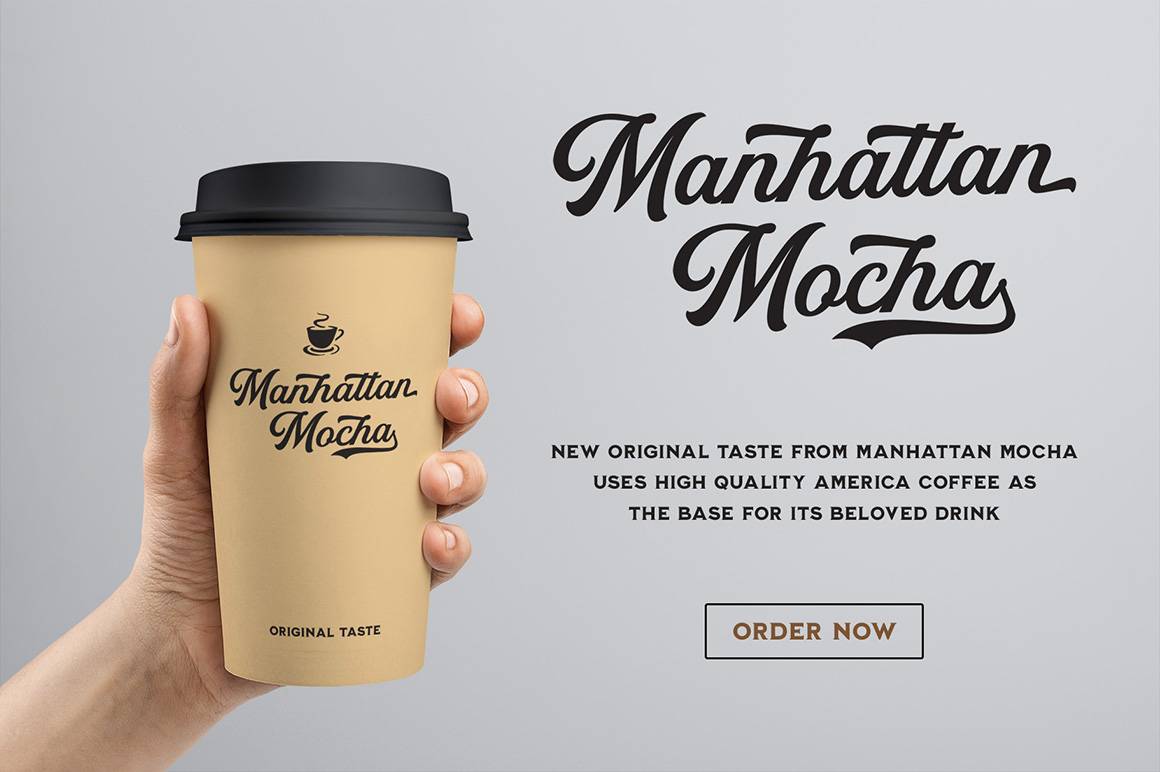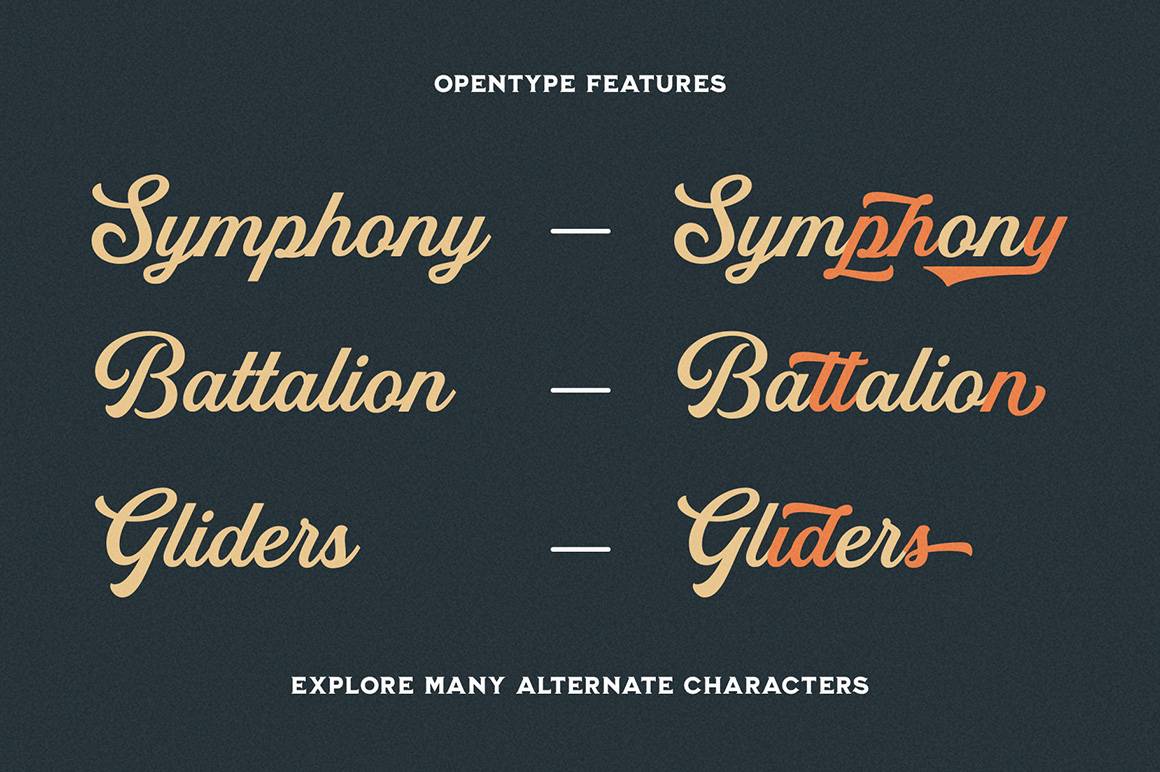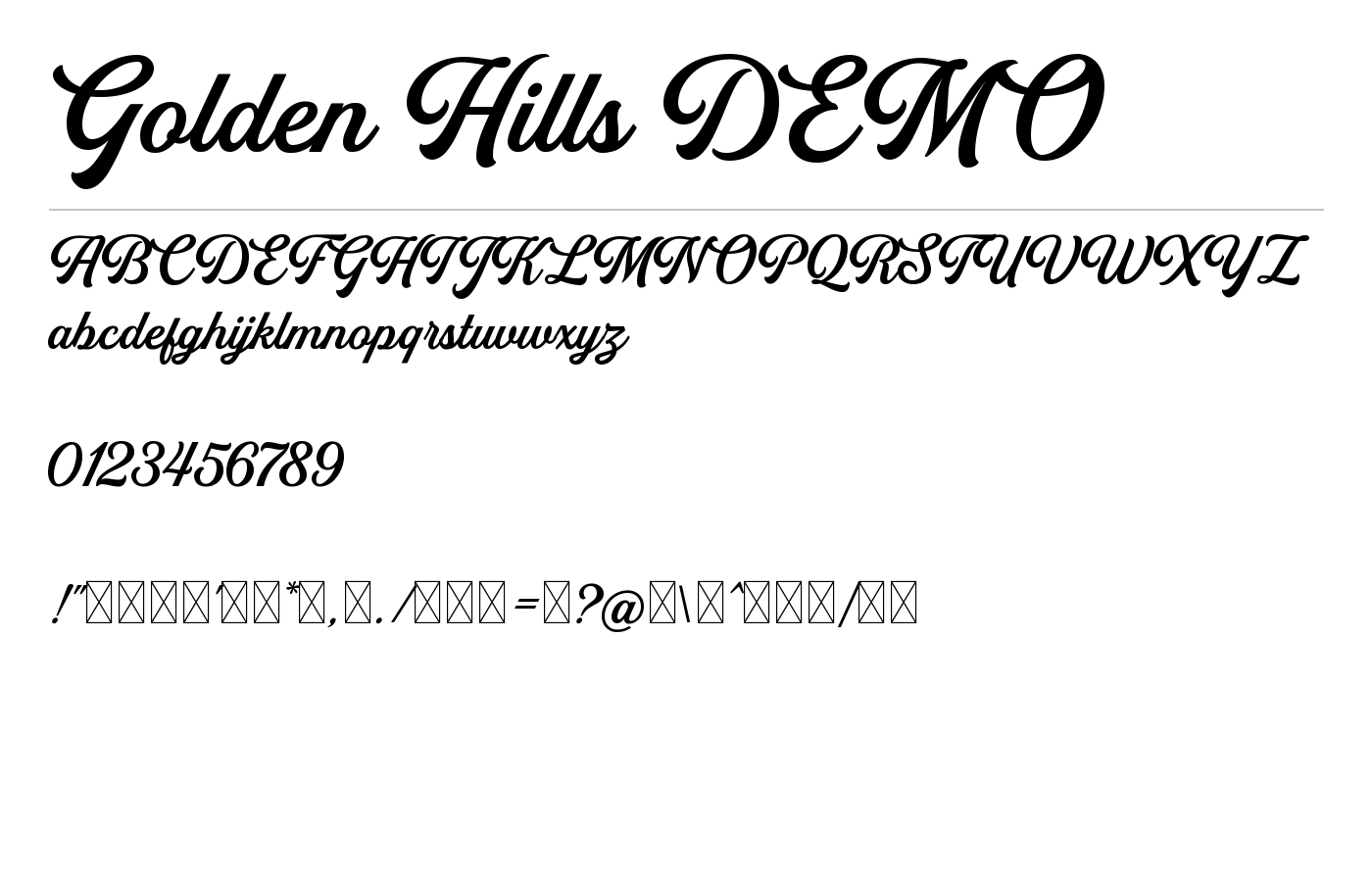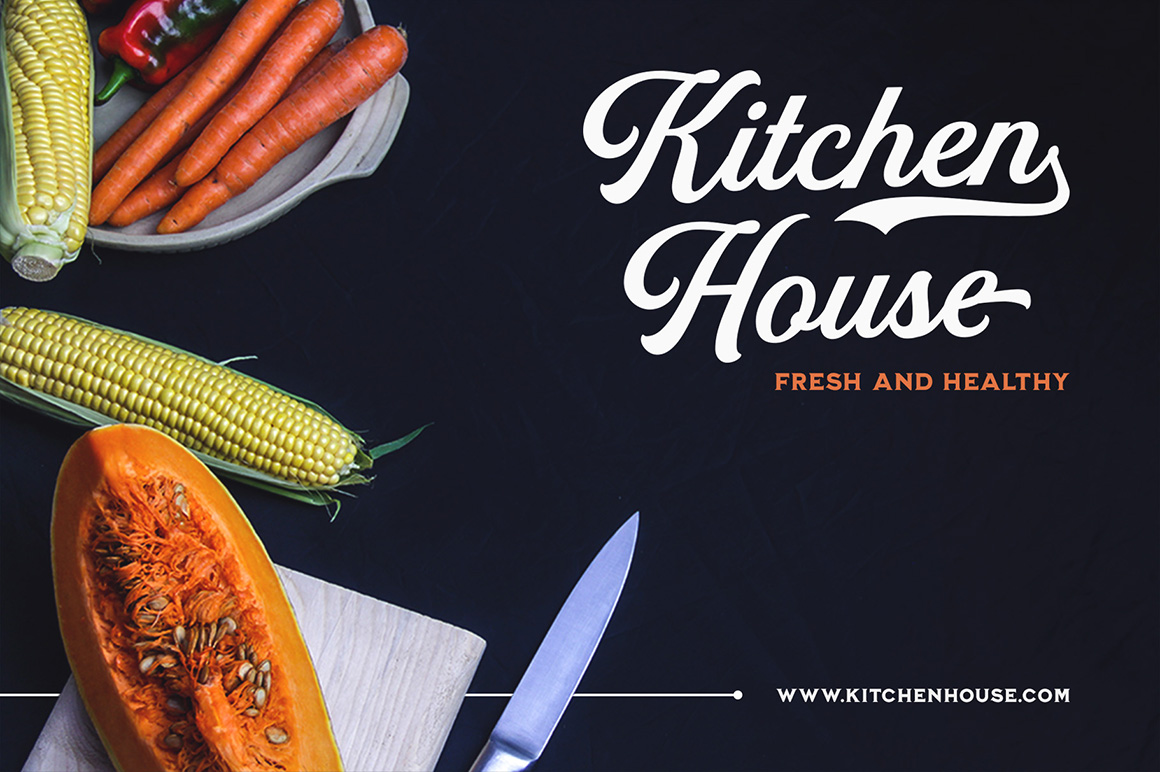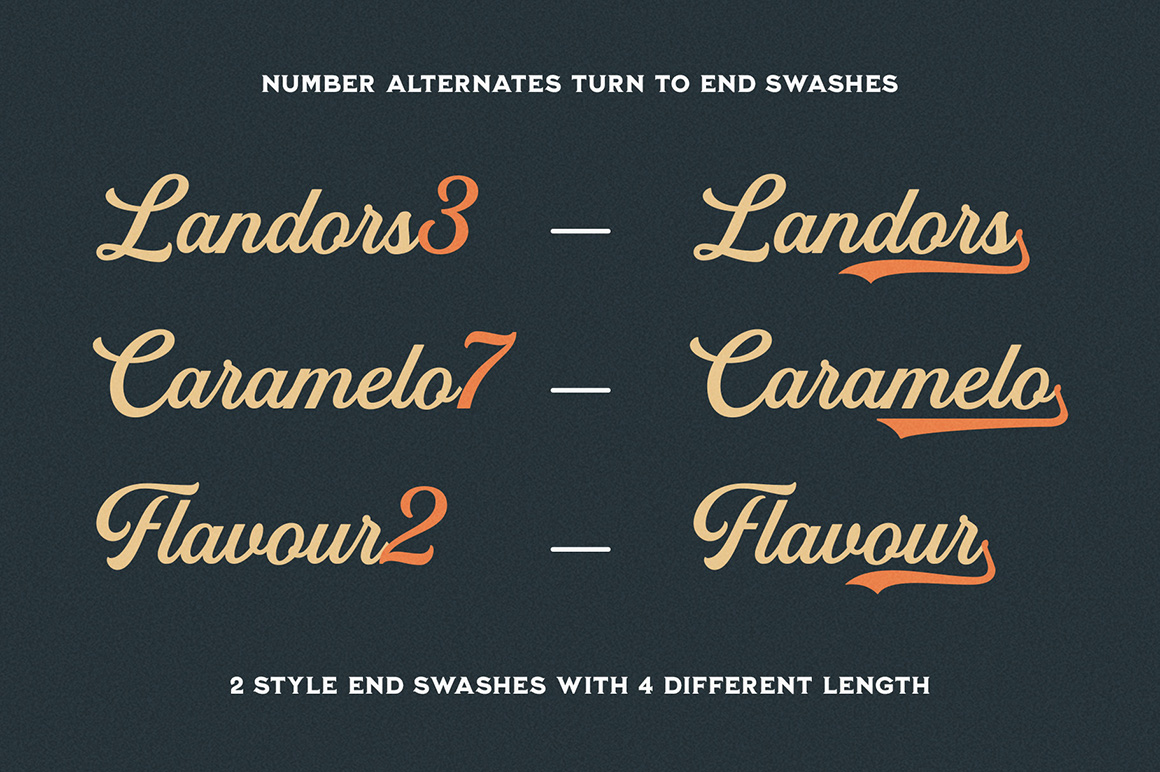
Golden Hills is an elegant script font with smooth, flowing strokes and a graceful, vintage charm. Its medium weight and refined curves make it perfect for luxury branding, invitations, and sophisticated headlines where a touch of classic style and personality is desired. This font shines in designs that aim to evoke warmth, elegance, and a timeless aesthetic.
Golden Hills
About Golden Hills
| Font family | Golden Hills |
| Designer | Iqbal Habibi |